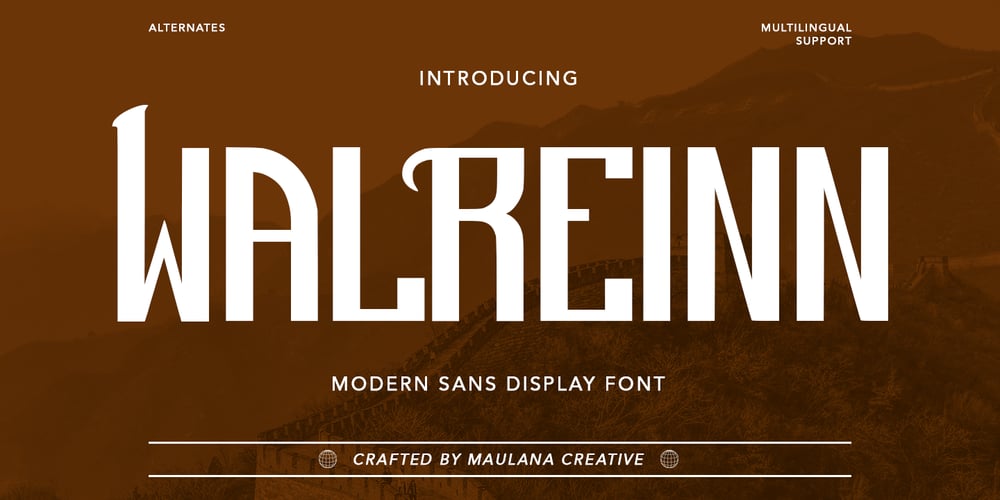
MC Walreinn
MC Walreinn font
MC Walreinn Font Family was designed by Gilang Maulana and published by Maulana Creative. MC Walreinn contains 1 styles and family package options. Walreinn is a modern decorative display font. Bold stroke, fun character with a bit of ligatures and alternates. To give you an extra creative work. Walreinn font support multilingual more than 100+ language. This font is good for logo design, Social media, Movie Titles, Books Titles, a short text even a long text letter and good for your secondary text font with script or serif. Make a stunning work with Walreinn font.Cheers,Maulana Creative